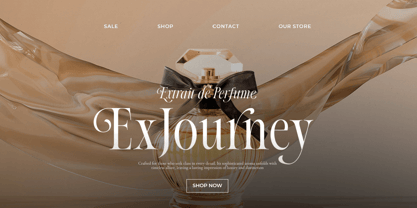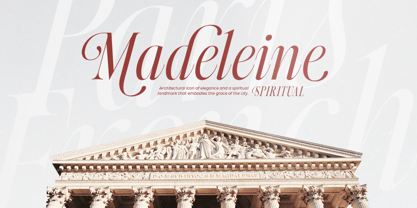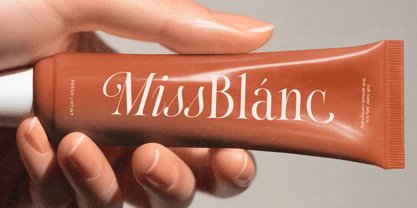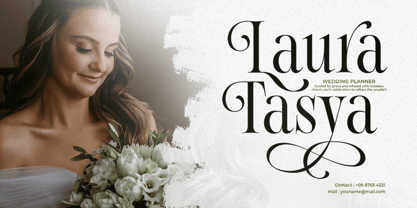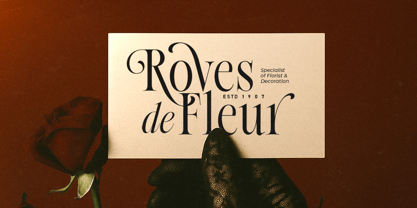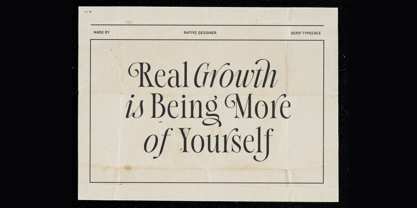
Native Designer
by Sarid Ezra
The Native Designer Font Family was designed by Sarid Ezra and published by Sarid Ezra. Native Designer contains 2 styles and family package options.
Native Designer is a classic yet modern serif family that have luxurious, and glamour looks. With true italic version, you can use this font family for any purposes such as wedding invitations, logo, and branding. With stylish alternates in both style, this font will make your design looks stunning and beautiful. Native Designer also support multi language!